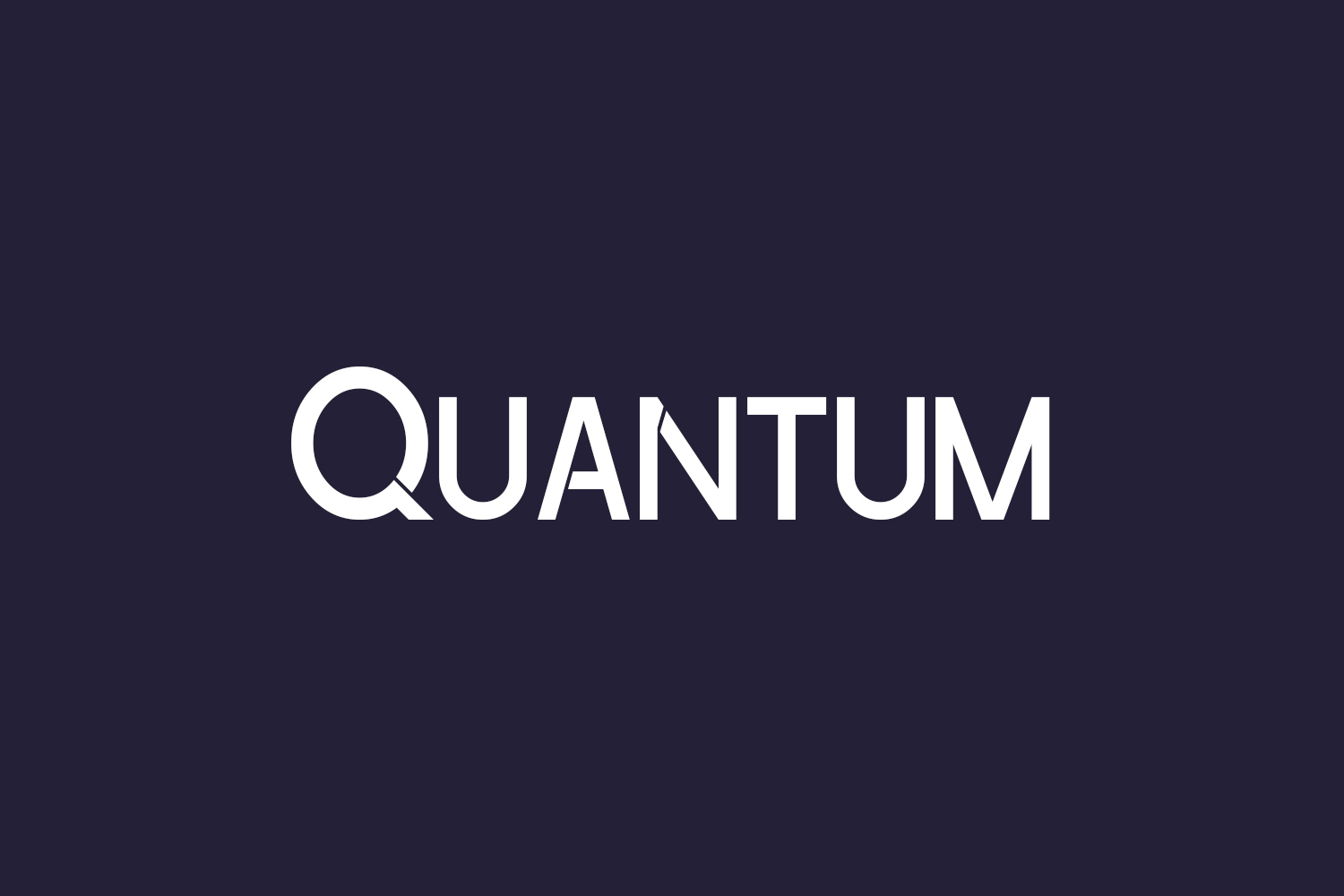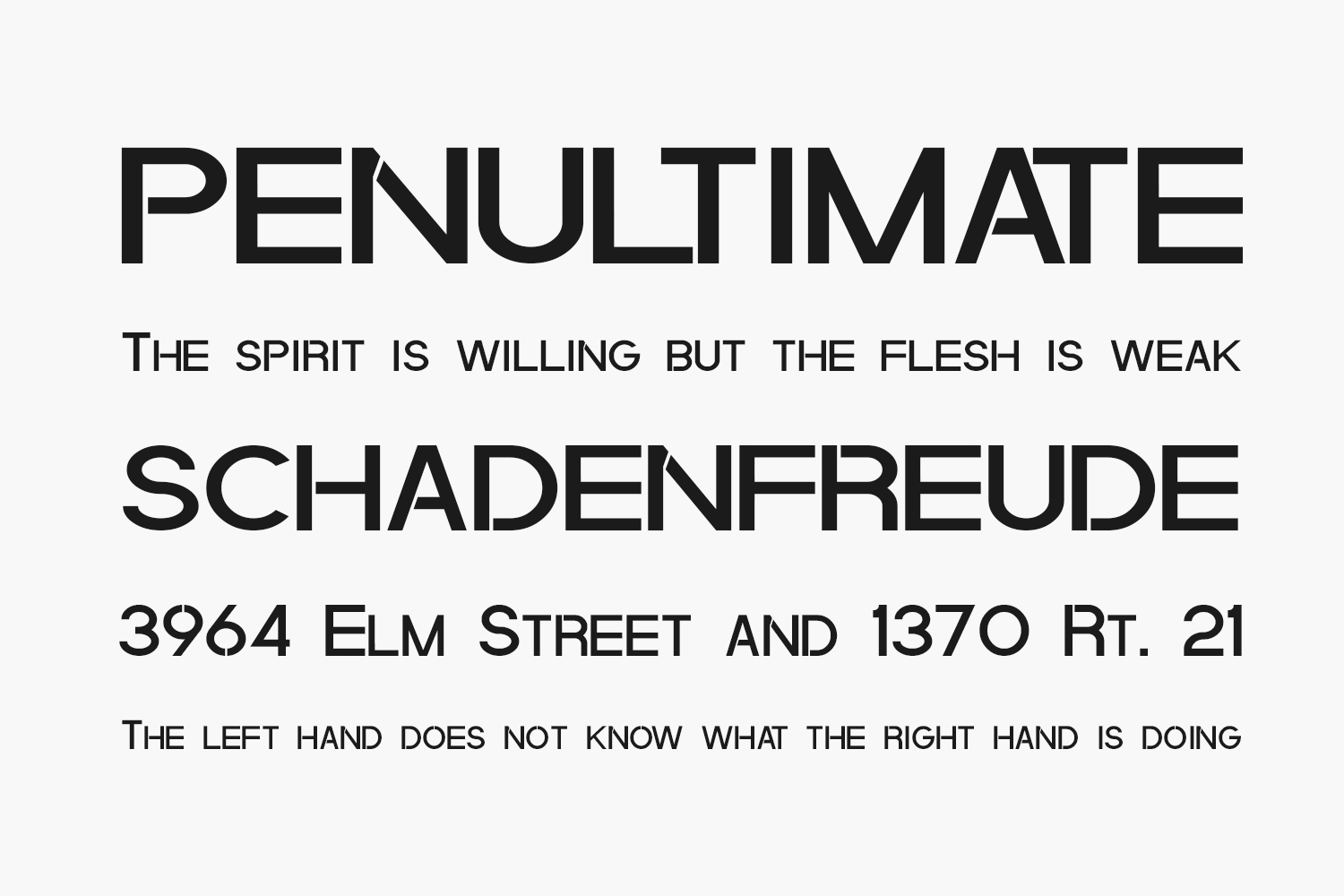
Quantum Free Font Family is a simple, classic-sans typeface is based on the title credits of the James Bond movie “Quantum of Solace”. Includes full alphabet, extended punctuation, Euro. Includes italic version.
Designed by Pixel Sagas